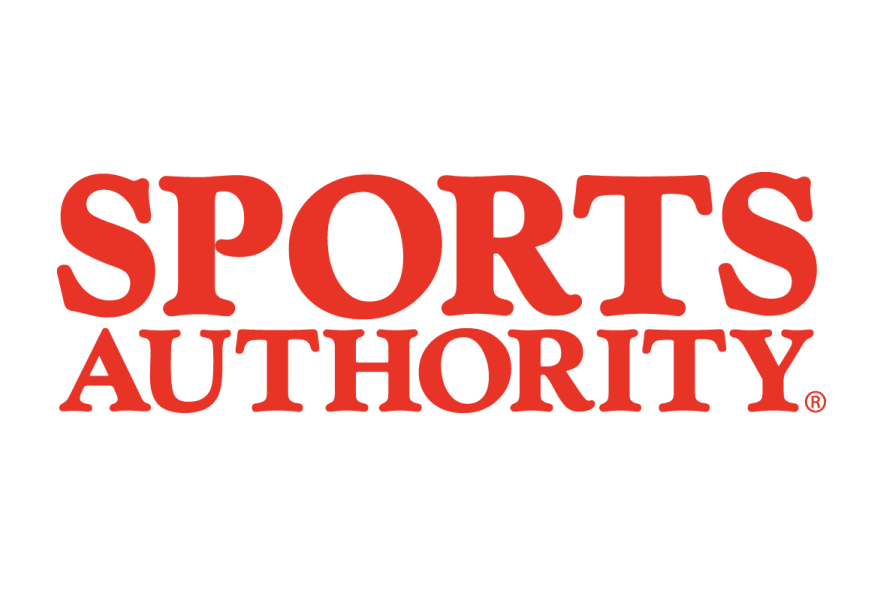
Sports Authority Font
LogoSports Authority was a US-based chain of sporting goods stores, founded in 1987 and owned by private equity firms. It ceased operations in 2016 and closed all of its stores.
The logo font resembles Goudy Old Style ExtraBold, which is a renowned serif typeface designed by Frederic W. Goudy in 1915 for American Type Founders. You can view and download the font here.